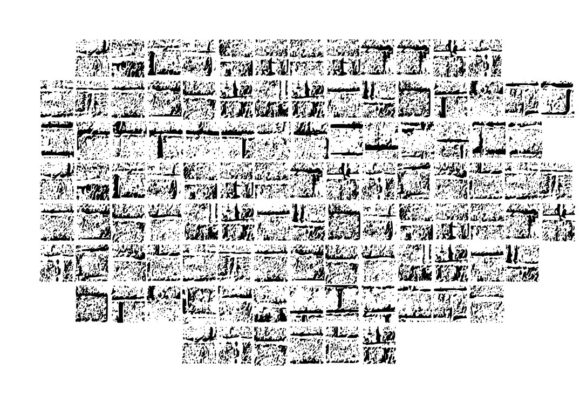
ABOUT BRICK WALL GLYPH FONT
“Brick Wall Glyph” is a comprehensive collection of glyphs that showcases a range of worn and old house brick textures. With its detailed and realistic brick patterns, this pack is an excellent choice for any project that requires a touch of vintage or industrial aesthetics.
Whether you’re working on graphic designs, crafting projects, or any creative endeavor that calls for the incorporation of brick textures, “Brick Wall Glyph” provides a wide selection of options to choose from. From weathered and aged brick patterns to distressed and crumbling surfaces, this pack allows you to explore different brick designs and create captivating compositions.
The brick glyphs in “Brick Wall Glyph” can add a sense of history, rustic charm, and architectural interest to your work. Whether you’re designing backgrounds for posters, creating textures for digital artwork, or adding a touch of authenticity to your crafts, “Brick Wall Glyph” offers a valuable resource.
Unleash your creativity and let the unique textures of these brick glyphs enhance your designs. Incorporate these glyphs into your projects and bring a touch of vintage character to your creations. Whether you’re aiming for a nostalgic atmosphere or an industrial vibe, “Brick Wall Glyph” is here to elevate your work.